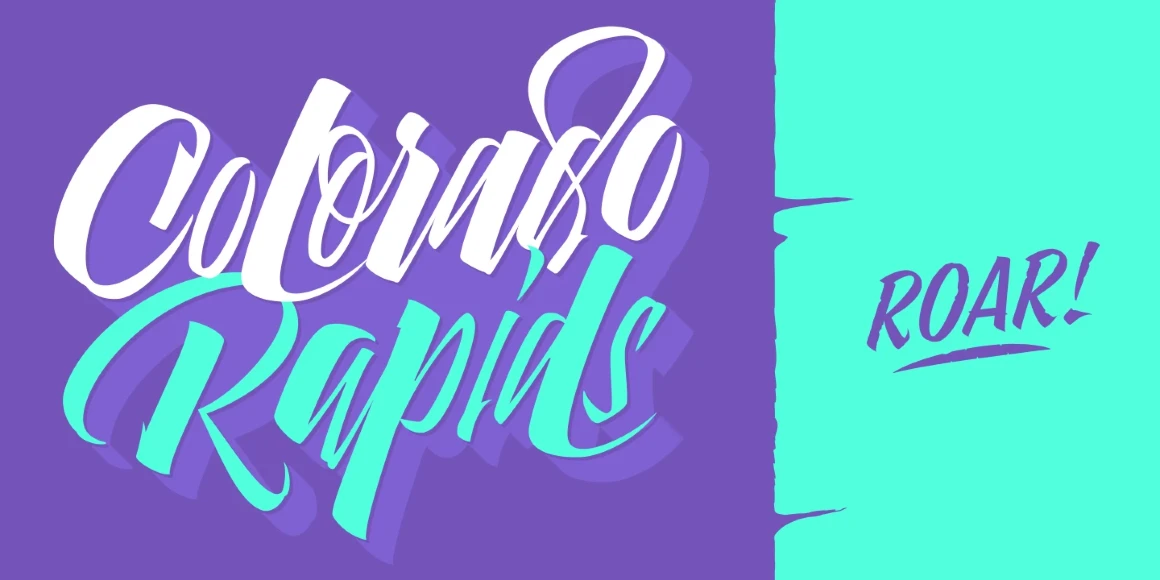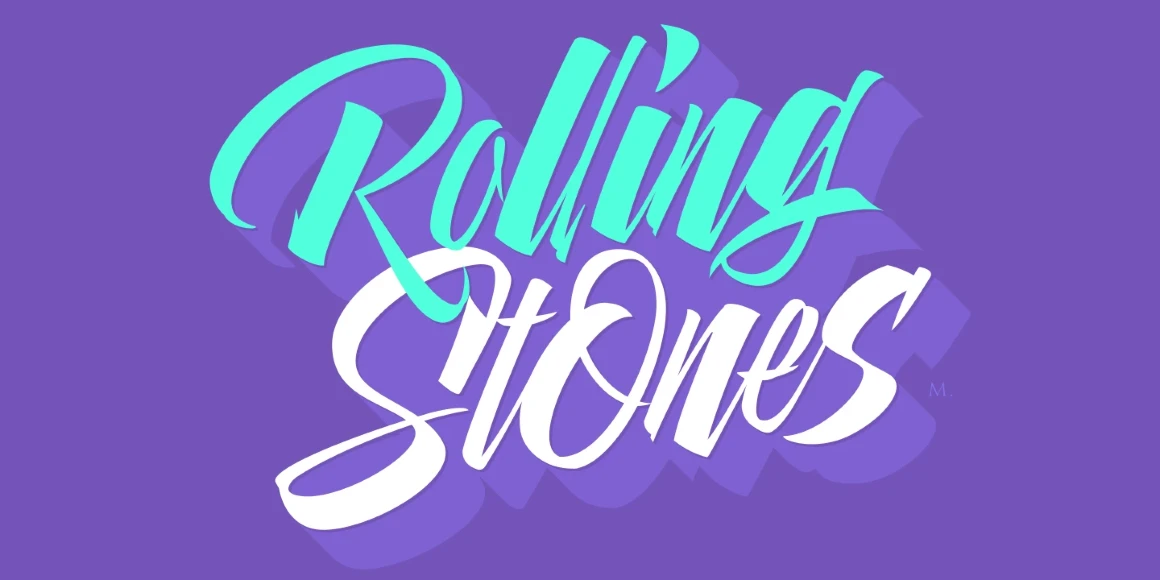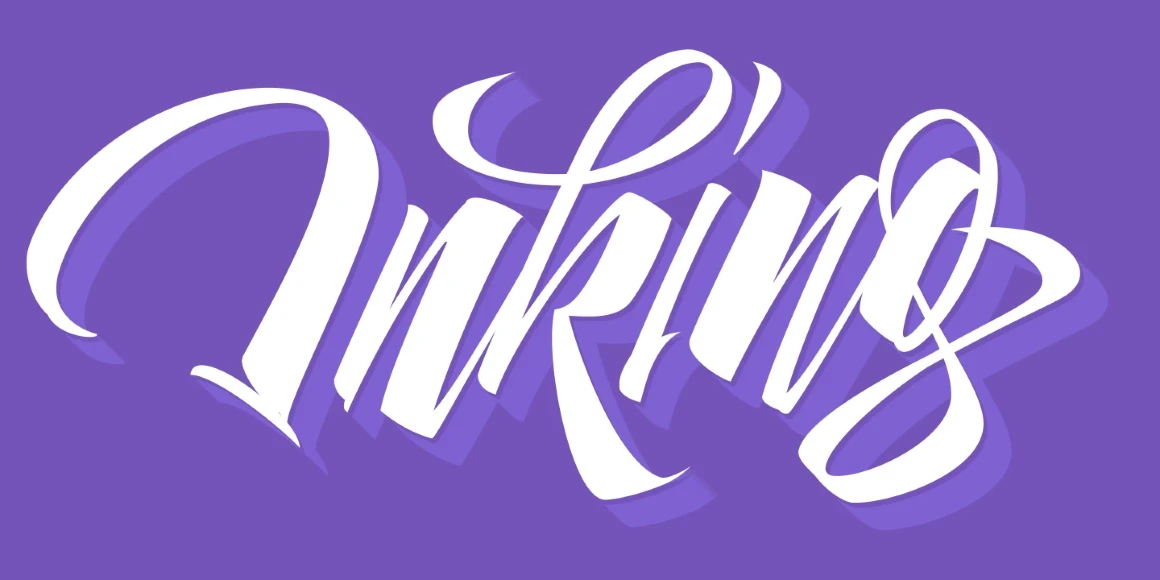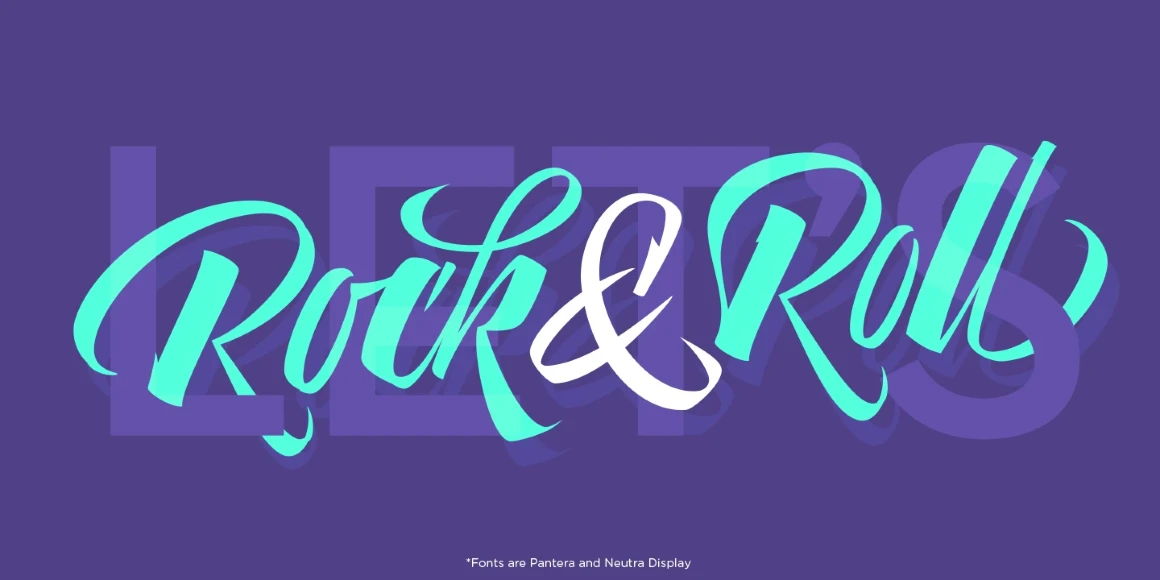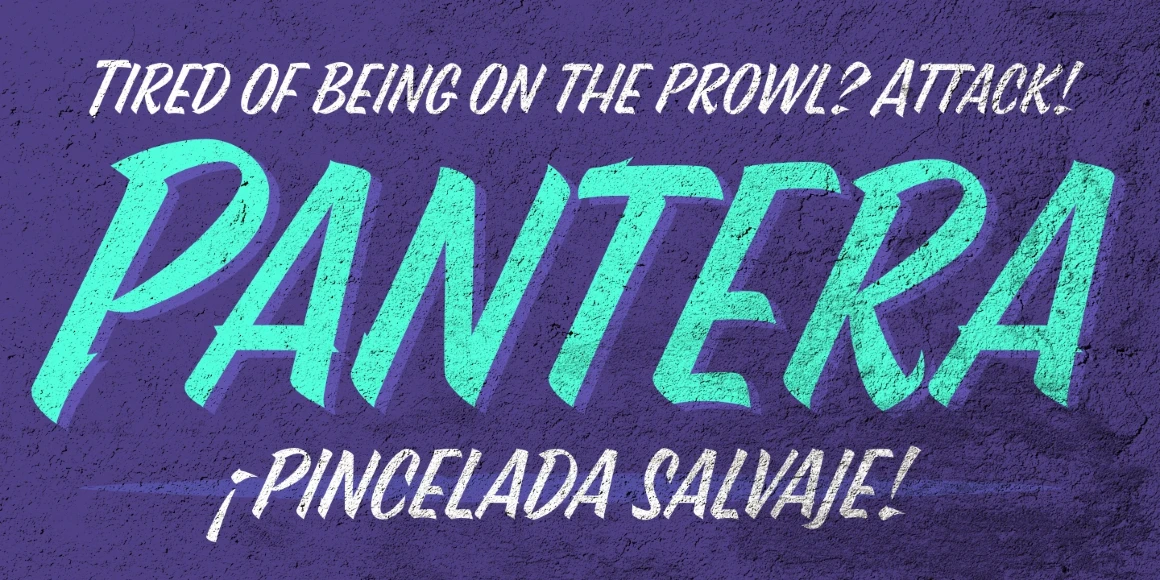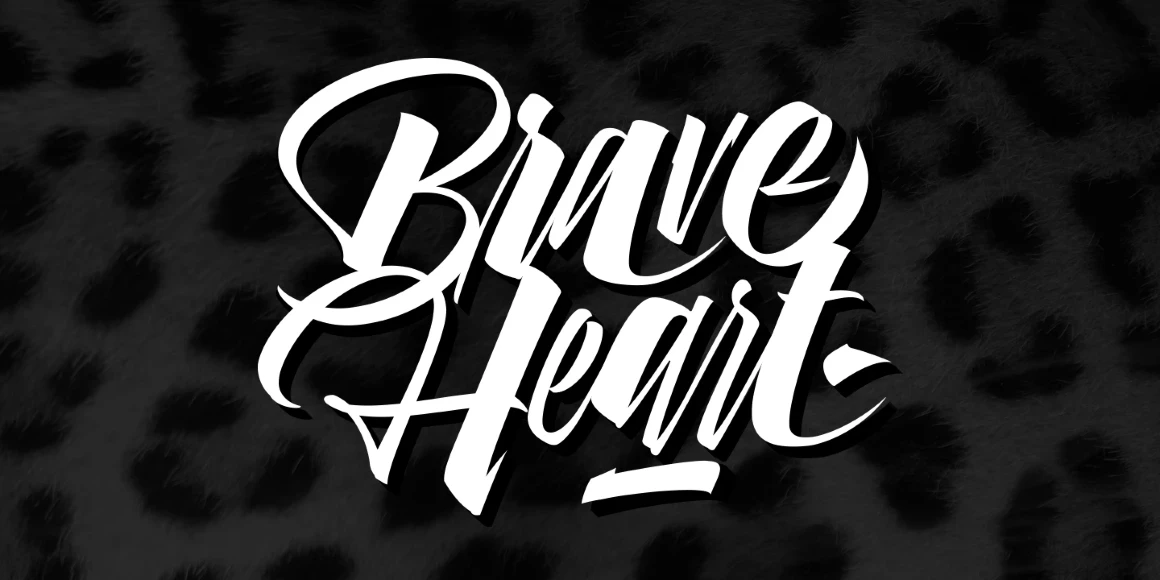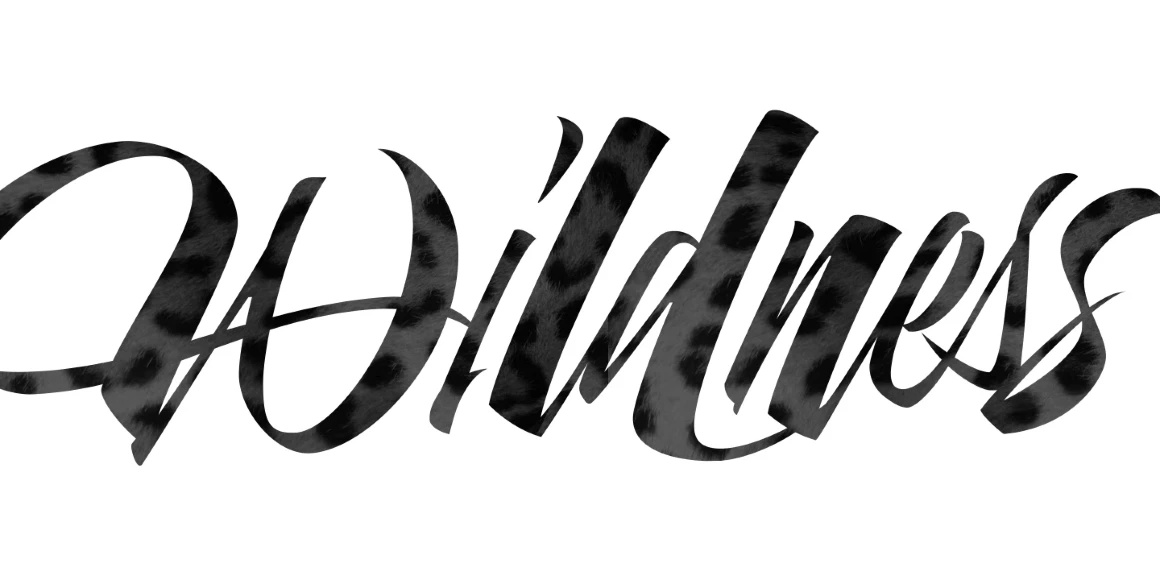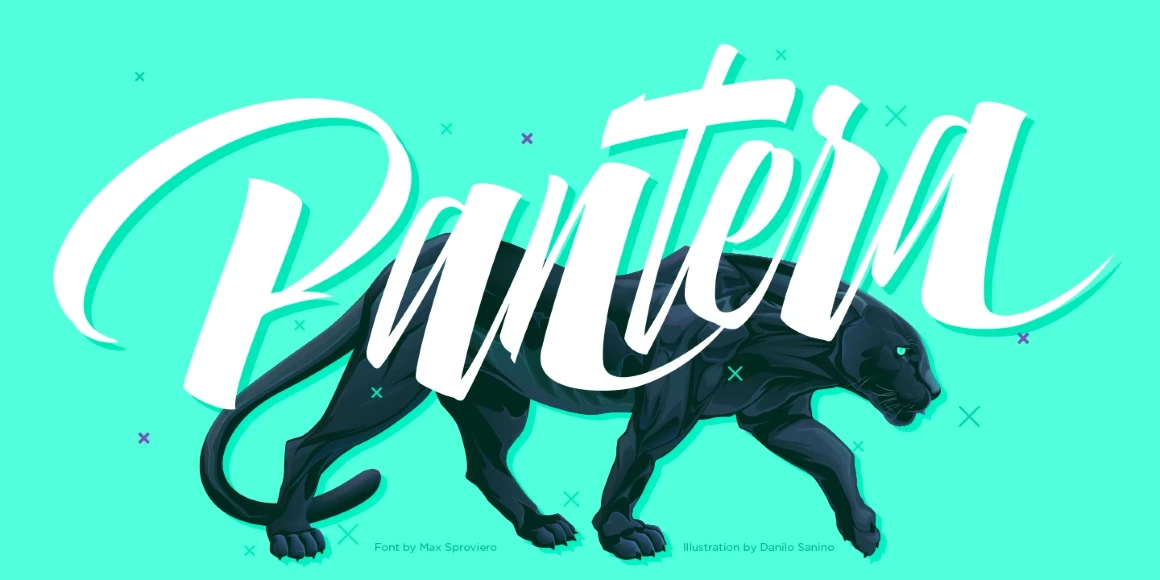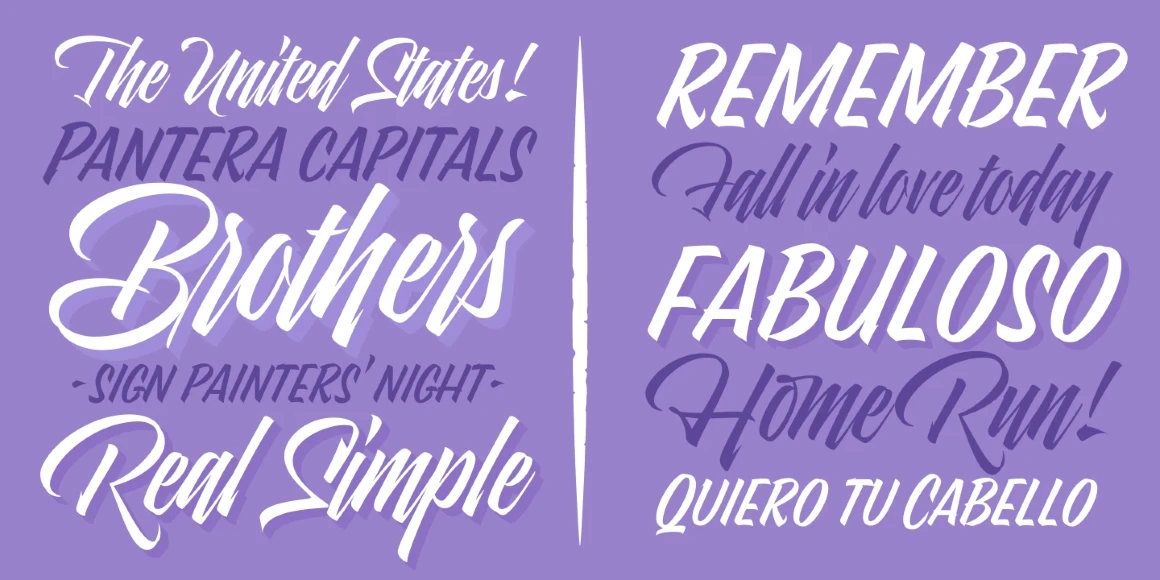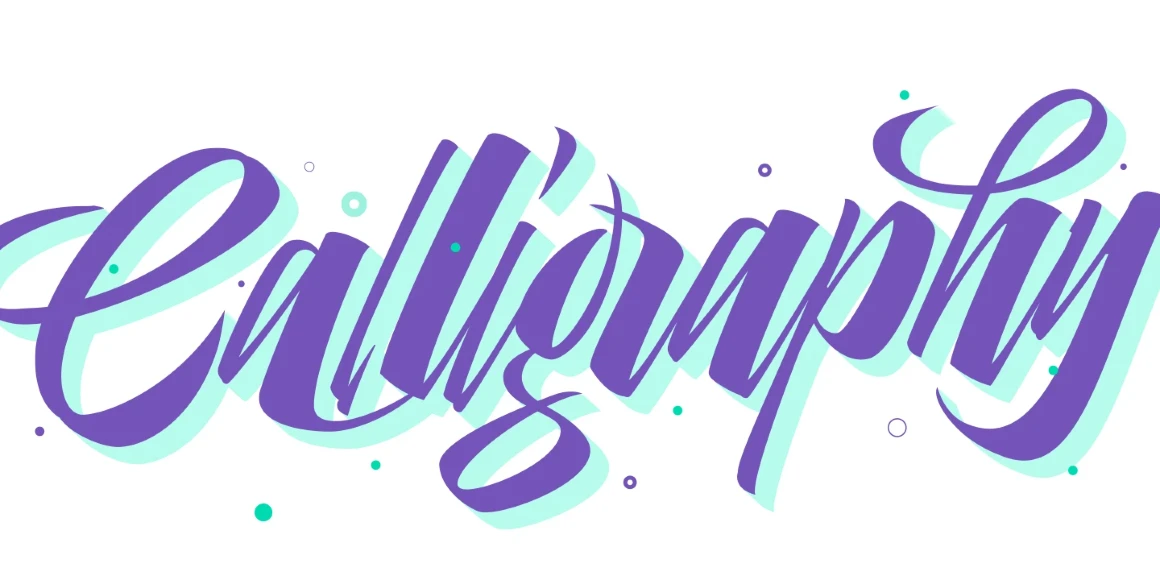
Pantera
By Maximiliano Sproviero
Pantera Claws
Pantera Black Left
Pantera Black Right
Pantera Regular
Pantera White
Pantera White Black Caps
Pantera Capitals
Pantera is a wild, rhythm-rich script that dances between thick and thin with feline precision. Rooted in pointed brush calligraphy, its expressive curves and shifting stroke patterns bring hand-lettered spontaneity into a conceptually striking design. Thanks to increasingly expressive styles and playful alternates, Pantera easily adapts to any situation — ideal for athletic branding, album covers, editorial headlines, or any typography ready to pounce off the page.